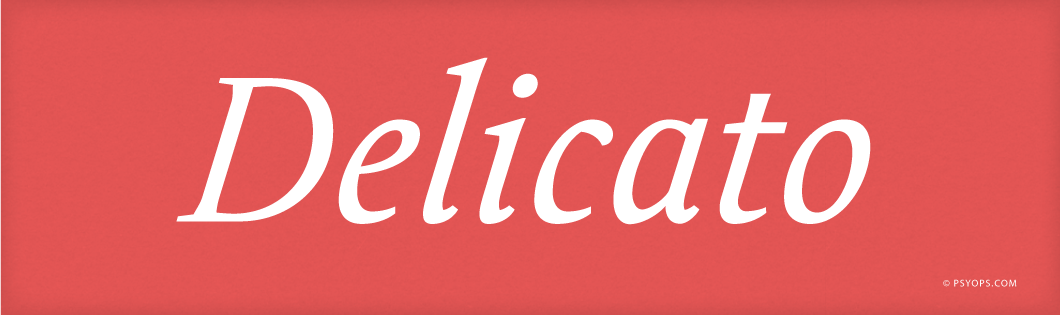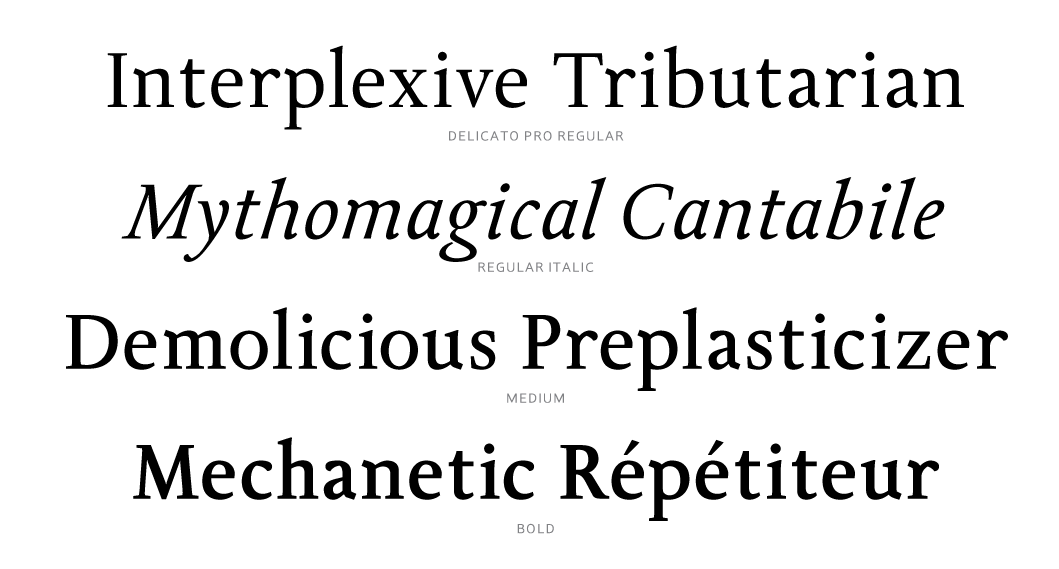
Delicato integrates unique modern details over a decidedly traditional foundation. The design fulfills Stefan Hattenbach’s goal of creating a sturdy text face for books and longer texts, while not precluding its use in more decorative settings. Stylistically, Delicato tips a respectful hat to Jeremy Tankard’s Enigma and Petr van Blokland’s Proforma. The family includes standard text cuts — Regular, Italic, Bold — each with full Smallcaps, Ligatures as well as Lining and Oldstyle figures (both Proportional and Tabular). A Medium weight, Alternates and a set of Ornaments further expand the family’s versatility. In 2008, Delicato was expanded to OpenType Pro status, most notably adding full support for Latin-based Central European languages, and that is the edition offered here.